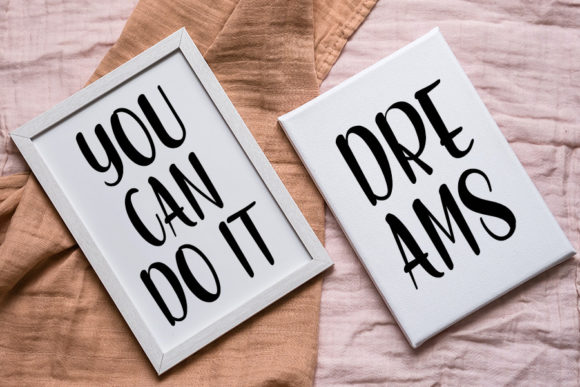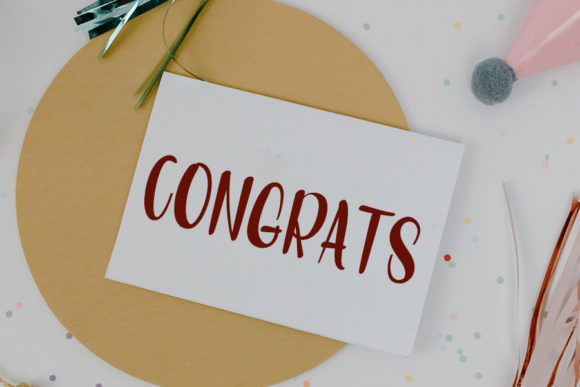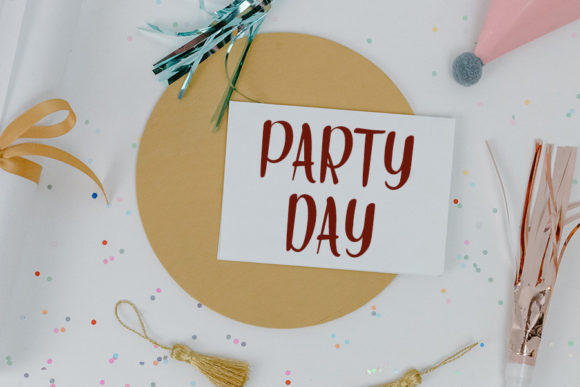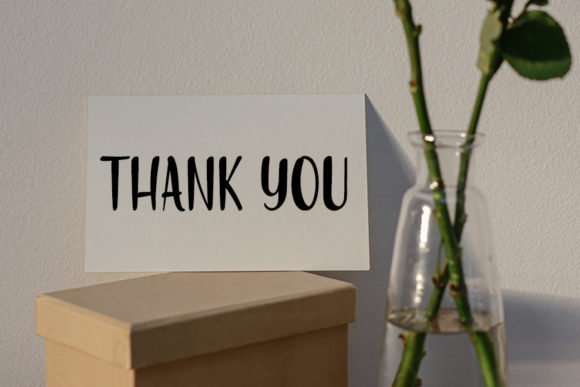
Introducing Graduation Font: Elevate Your Designs with Timeless Elegance
Are you searching for a font that exudes sophistication, elegance, and a touch of modernity? Look no further than Graduation Font, a stunning display font that is sure to elevate your designs to new heights. Inspired by timeless classic calligraphy, Graduation Font boasts a well-balanced and contemporary atmosphere, making it perfect for a wide range of creative projects.
The Inspiration Behind Graduation Font
Graduation Font draws its inspiration from the art of classic calligraphy, a style that has been revered for centuries for its beauty and precision. The font’s creator aimed to capture the essence of traditional calligraphy and infuse it with a modern twist, resulting in a unique and versatile typeface. The result is a font that is both nostalgic and fresh, perfect for designers and crafters looking to add a touch of sophistication to their work.
Key Features of Graduation Font
So, what makes Graduation Font stand out from the crowd? Here are just a few of its key features:
- Well-balanced design: Graduation Font boasts a perfectly balanced design, with elegant lines and curves that work harmoniously together to create a beautiful visual experience.
- Contemporary atmosphere: Despite its classic inspiration, Graduation Font has a distinctly modern feel, making it perfect for designers looking to create fresh and contemporary designs.
- Impeccable form: The font’s attention to detail is impeccable, with precise lines and curves that ensure a beautiful and consistent look.
- Versatility: Graduation Font is incredibly versatile, and can be used in a wide range of contexts, from branding and advertising to packaging and digital design.
Use Cases for Graduation Font
So, how can you use Graduation Font in your designs? The possibilities are endless, but here are a few ideas to get you started:
- Branding and logos: Graduation Font is perfect for creating elegant and sophisticated logos that will help your brand stand out from the crowd.
- Wedding and event designs: The font’s classic inspiration and modern twist make it perfect for wedding and event designs, such as invitations, programs, and signage.
- Packaging design: Graduation Font can add a touch of elegance and sophistication to packaging design, making it perfect for luxury brands and high-end products.
- Digital design: The font’s clean and modern lines make it perfect for digital design, including website headers, social media graphics, and more.
Tips for Using Graduation Font
To get the most out of Graduation Font, here are a few tips to keep in mind:
- Use it sparingly: Graduation Font is a display font, and is best used sparingly to add emphasis and elegance to your designs.
- Experiment with colors: The font’s classic inspiration and modern twist make it perfect for use with a wide range of colors, from bold and bright to soft and pastel.
- Pair it with other fonts: Graduation Font can be paired with a wide range of other fonts to create a unique and visually appealing design.
Graduation Font is a stunning display font that is sure to elevate your designs to new heights. With its timeless classic inspiration, contemporary atmosphere, and impeccable form, it’s the perfect choice for designers and crafters looking to add a touch of elegance and sophistication to their work. Whether you’re creating branding and logos, wedding and event designs, packaging design, or digital design, Graduation Font is the perfect choice.